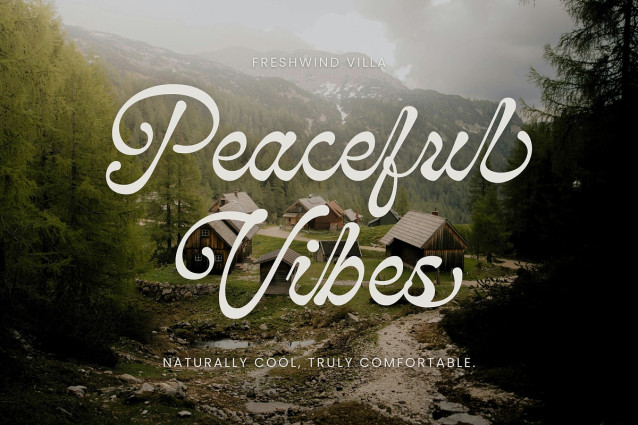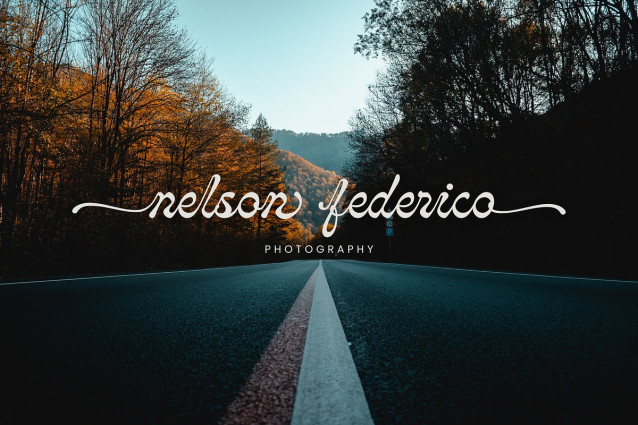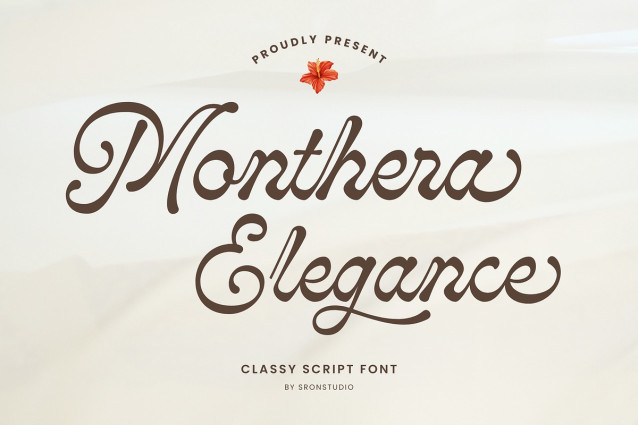
Monthera Font
Monthera Font is a classy script font that blends elegance with smooth, flowing strokes. Designed to feel refined yet natural, this font is perfect for luxury branding, wedding designs, invitations, logos, packaging, and sophisticated editorial layouts. With its graceful curves and timeless character, Monthera adds a touch of charm and exclusivity to any design project.